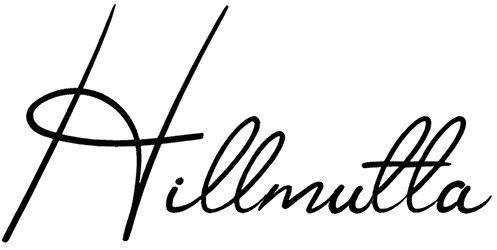
Hillmutta Font
Classic as an old letter and elegant as a lovely masterpiece would be the best description for a wonderful script font like Hillmutta that comes with a soft flow and cursive style.
This calligraphy font is capable of adding a personalized touch to your artwork, including magazines, book covers, business cards, product packaging, or flyers. Needless to say that this masterpiece carries a feeling of delicacy, professionalism, drama, and friendliness.